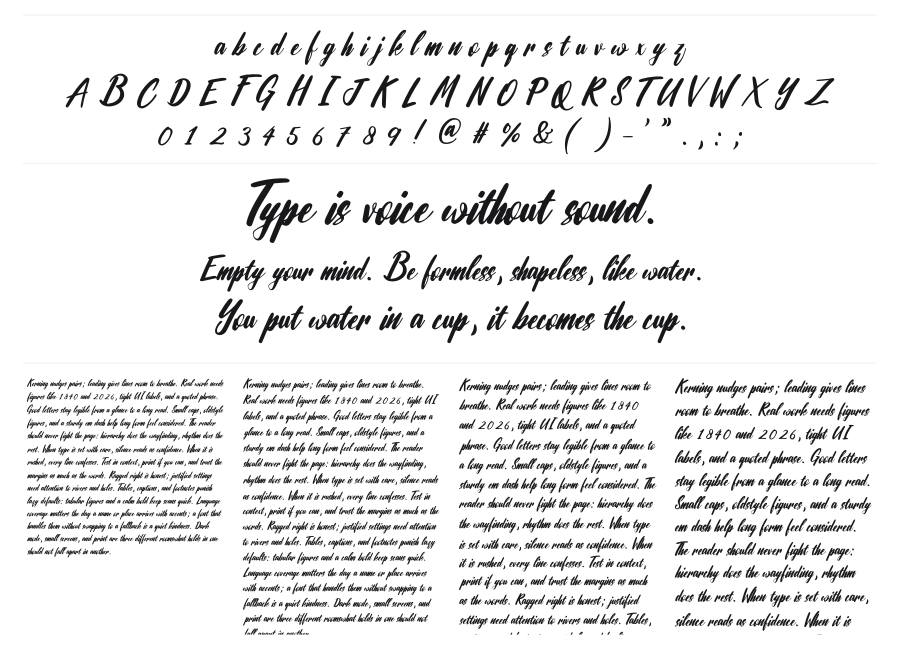
Vacansa
by Pungky Stiawan
Vacansa is a bold brush typeface by Pungky Stiawan with thick, energetic strokes that feel fast and loose, like they were laid down in one confident pass. The letterforms carry a casual expressiveness that keeps things lively without losing readability, making it a strong pick for posters, headlines, and branding that needs to feel spontaneous and full of movement.